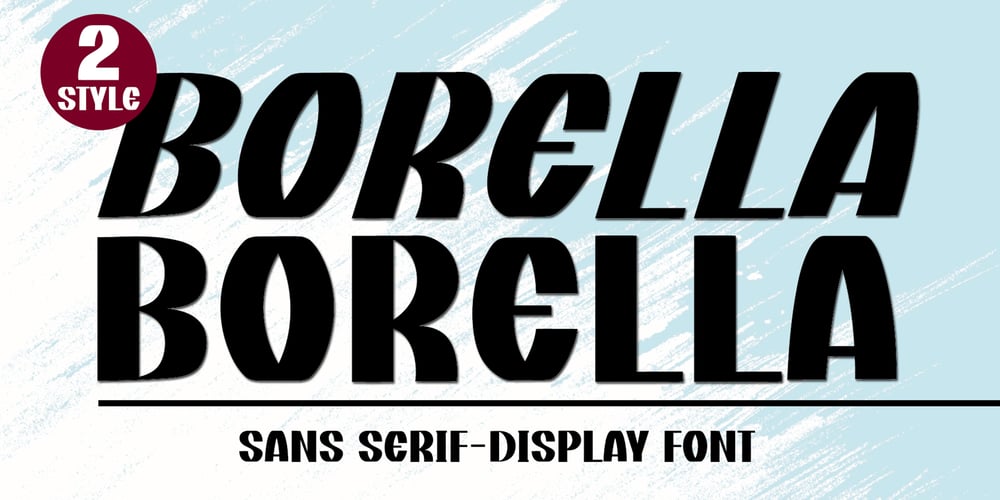
Borella Font Family was designed by Ahmad Afandi and published by Letterafandi Studio. Borella contains 2 styles and family package options. Inject an air of elegance into your design vision with Borella, a sans serif font with a sophisticated charm. Expertly crafted, Borella delivers in both small scale projects and expansive corporate designs. This versatile typography tool seamlessly elevates your art, providing the perfect balance of professionalism and creativity. Unleash your full design potential with Borella, the sans serif font that refines and complements any space it occupies.